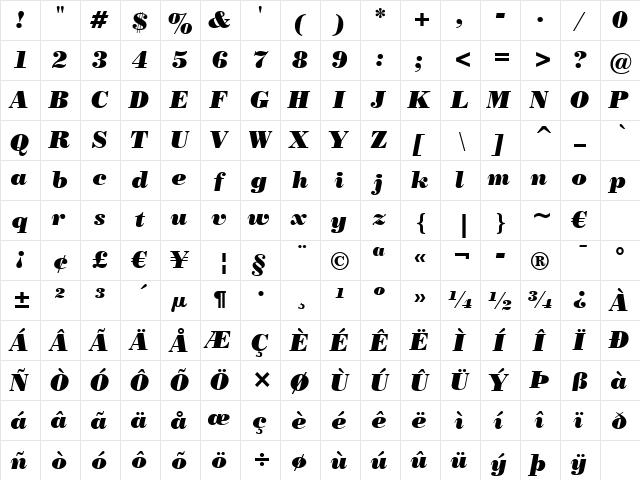
PosterBodoni It BT Italic Font Preview
PosterBodoni It BT Italic
Design Context for PosterBodoni It BT Typeface
PosterBodoni It BT offers clean, dependable letterforms without strong stylistic allegiance, making it a practical choice for designers who need flexibility. The dynamic lean of this cut emphasises speed and emphasis in any layout.
Pro Tip: Try PosterBodoni It BT for annotation and caption copy alongside an upright companion — the contrast in angle creates a dynamic but ordered typographic system.